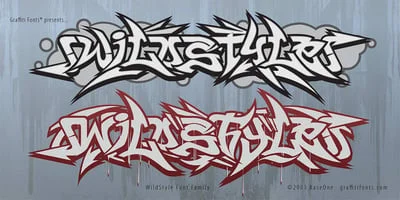
WildStyle Font
The WildStyle Font is perfect for urban street art design projects including graffiti-inspired posters, hip-hop music branding, street culture magazines, underground event promotions, urban fashion labels, breakdancing competition materials, street art exhibitions, and authentic urban lifestyle marketing. This dynamic typeface brings raw street energy and graffiti authenticity to any design project celebrating urban culture and street art expression with rebellious creative spirit.
What makes WildStyle Font so exciting is its explosive embodiment of graffiti wildstyle tradition with complex, interwoven letterforms that capture the essence of advanced street art techniques and urban artistic mastery. The letters feature intricate characteristics with street art complexity that creates an immediate sense of underground authenticity and artistic rebellion. This distinctive street character makes it perfect for brands and projects that want to communicate urban culture, artistic rebellion, and the compelling appeal of authentic street art and hip-hop cultural expression.
The WildStyle Font family typically includes regular and bold variations, often with graffiti-inspired effects and street art decorative elements. Many versions feature urban symbols, hip-hop glyphs, and street culture design elements that enhance its authenticity for underground and urban culture applications.
Whether you're designing for hip-hop artists, street fashion brands, or urban cultural events, WildStyle Font offers the perfect solution for projects that need to convey authentic street art energy and urban creativity. This font transforms standard text into explosive designs that immediately communicate street art mastery, urban authenticity, and the raw creative power of graffiti culture to audiences passionate about hip-hop music and authentic street art expression.